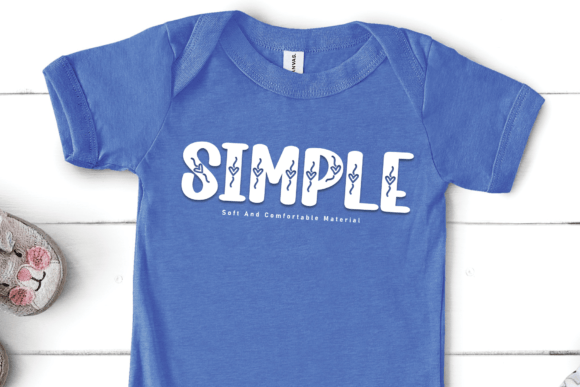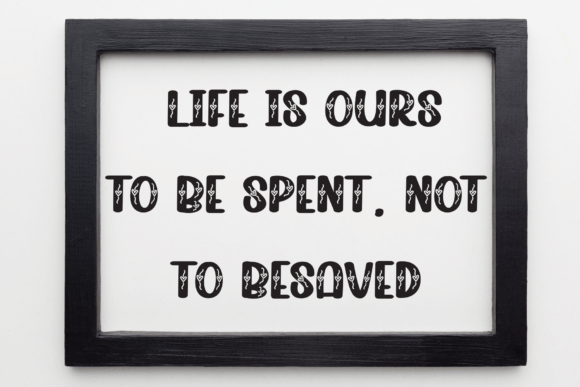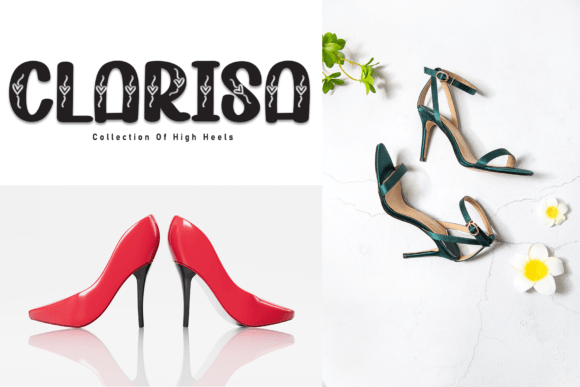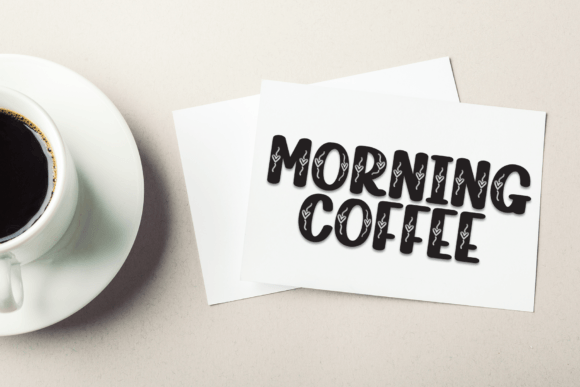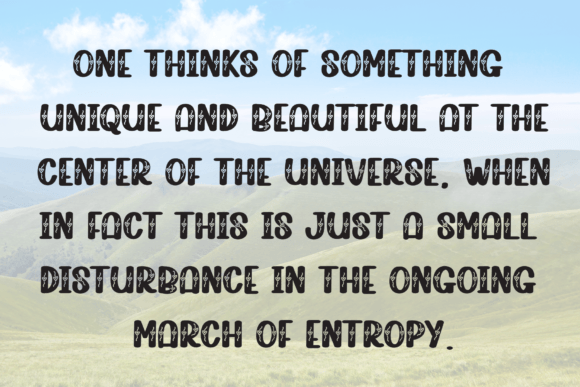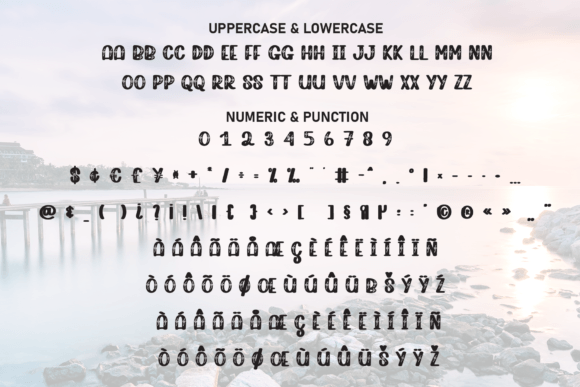
Introduction to Peaceful Nature Font
Have you ever found yourself lost in the serenity of a forest, surrounded by lush greenery and the gentle sounds of nature? For designers, moments like these can spark creative ideas and inspire new projects. It’s in these tranquil settings that the beauty of the Peaceful Nature Font comes alive.
This charming decorative font is more than just a pretty face – each letter holds a tiny heart, adding a touch of warmth and sweetness to your words. Perfect for projects that celebrate love and tranquility in a natural setting, the Peaceful Nature Font is a valuable design resource for any creative project.
Key Features of Peaceful Nature Font
- Unique, hand-drawn design with a focus on natural elements, ideal for environmental and outdoor-themed designs.
- Features a large x-height and subtle flair, making it easy to read and visually appealing.
Honest Review: Peaceful Nature Font
I recently had the chance to try out the Peaceful Nature Font, and I must say it’s been a game-changer for my creative projects. The high quality of this font is truly impressive, making it a valuable addition to any design resource collection.
What works well: ✨ The Peaceful Nature Font is incredibly versatile, with a wide range of styles and sizes that can be easily customized to suit any design need. The transparent background option is also a huge plus, allowing for seamless integration into any creative project.
- Wide range of styles and sizes
That being said, I do have a few minor complaints. ⚠️ The font can be a bit tricky to use in certain design programs, and the documentation could be improved. However, these issues are relatively minor and don’t detract from the overall value of the font.
Overall impression: I’m thoroughly impressed with the Peaceful Nature Font. Its high quality, versatility, and ease of use make it an excellent addition to any design resource collection. Whether you’re a seasoned designer or just starting out, this font is definitely worth checking out.
To get the most out of the Peaceful Nature Font, try using it with a transparent background to create a sense of depth and dimension. You can also experiment with different font sizes and styles to create a unique look.
The Peaceful Nature Font is perfect for creating invitations, greeting cards, and other paper crafts. It’s also great for designing websites, social media graphics, and other digital projects that require a natural and calming feel.